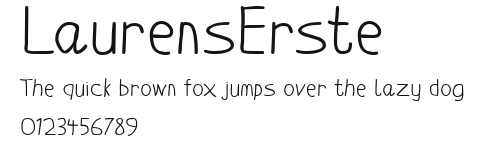
• Font Name: LaurensErste
• Full Font Name: LaurensErste
• Copyright: © Laurens Dillmann, Manfred Klein (for finishing) 2.2002
About LaurensErste.ttf
LaurensErste.ttf is a modern, elegant sans-serif font designed for ultimate readability and visual harmony. Perfect for branding, headlines, web design, and print materials.